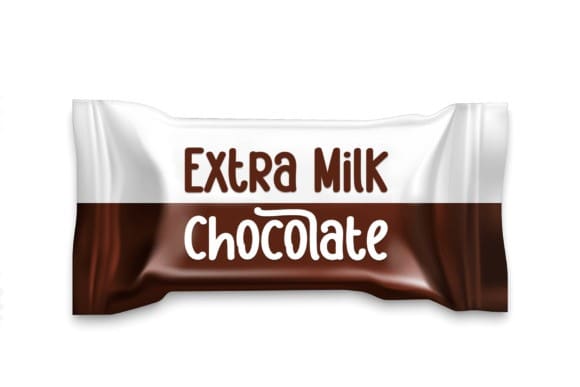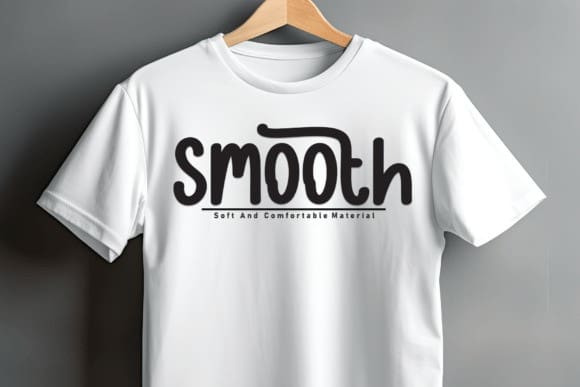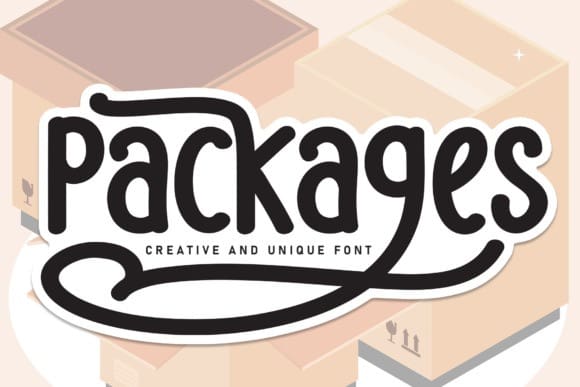
Packages Display Font
Packages Display Font is a sweet and friendly script font. It is perfect for use on logos, quotes, social media, web design, posters, flyers and so much more.